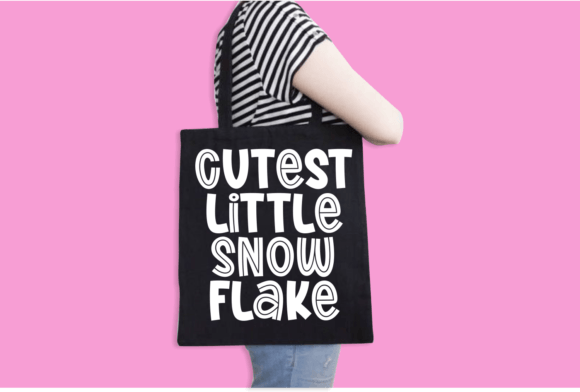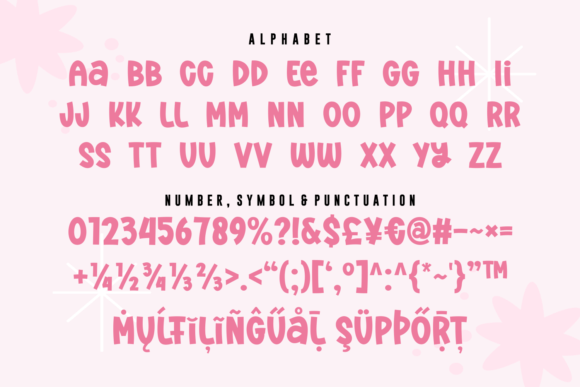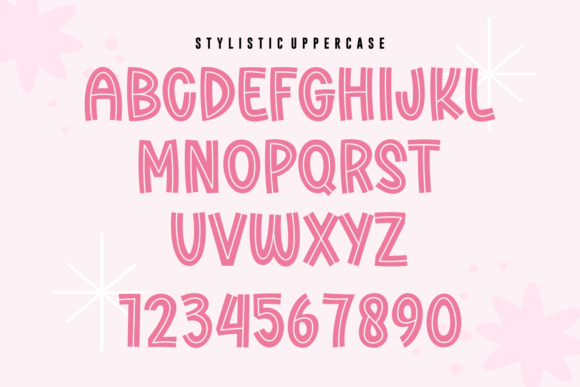
Introduction to Skylight Candy Font
Do you remember the thrill of discovering a new font that perfectly captures the essence of your creative vision? For many designers, it’s a moment that sparks inspiration and sets the tone for an exciting project. For those looking to add a touch of whimsy and playfulness to their designs, we’re excited to introduce you to the Skylight Candy Font.
This delightful font is more than just a pretty face – it’s a design resource that can elevate your creative project to new heights. With its transparent background and high-quality design, Skylight Candy Font is perfect for designers who want to create eye-catching visuals that pop. And the best part? It’s available for free download, making it an invaluable addition to any design arsenal.
Key Features of Skylight Candy Font
- Unique and colorful design perfect for creative projects, offering a playful touch to any design resource.
- High-quality font with transparent background, ideal for use in digital designs, web pages, and print materials.
- Features a large character set, including uppercase and lowercase letters, numbers, and special characters.
- Perfect for use in various creative projects, including logos, branding materials, and advertisements.
Honest Review: Skylight Candy Font
I recently came across the Skylight Candy Font while searching for a free download to use in a creative project. I was immediately drawn to its high quality and unique aesthetic. The font’s transparent background made it easy to pair with other design elements.
What works well about the Skylight Candy Font is its versatility. It can be used in a variety of creative projects, from digital art to print designs. The font’s high quality is evident in its crisp lines and smooth curves.
Some of the standout features of the Skylight Candy Font include:
- Unique and playful design
- High quality and crisp lines
- Transparent background for easy pairing
However, I did encounter some limitations while using the Skylight Candy Font. The font’s transparency can sometimes make it difficult to read, especially in low-light conditions. Additionally, the font may not be suitable for all design projects, particularly those that require a more serious or formal tone.
Overall, I would recommend the Skylight Candy Font for designers who are looking for a high-quality, unique font for their creative projects. With its transparent background and free download, it’s a valuable resource that can add a touch of whimsy to any design.
Tips for Getting the Most Out of Skylight Candy Font
Use Skylight Candy Font on a transparent background to create a striking visual effect. Experiment with different font sizes and colors to add depth and interest to your design. This font is perfect for creative projects, from wedding invitations to social media graphics.
Skylight Candy Font is ideal for use in a variety of design projects, including:
Social media graphics and advertising
Branding and logo design
Print materials, such as business cards and brochures